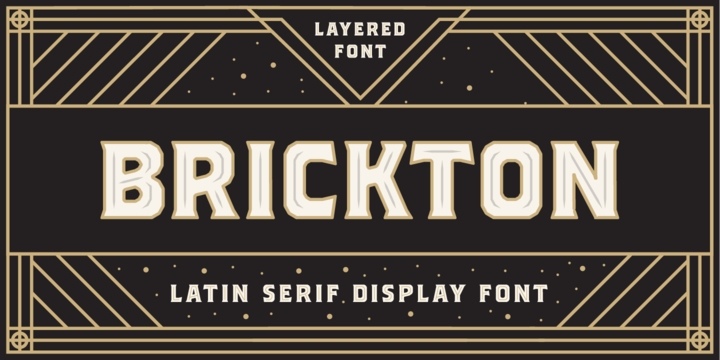
Brickton Font is perfect for construction company branding, masonry contractor logos, architectural firm presentations, building materials packaging, structural engineering documentation, construction equipment signage, contractor business materials, industrial supply company graphics, real estate development projects, and infrastructure company communications. This solid typeface excels in applications where structural integrity, building craftsmanship, and construction reliability are fundamental brand messaging elements.
What makes Brickton Font exciting is its robust embodiment of construction excellence through sturdy letterforms that capture the strength and precision of quality building craftsmanship and structural engineering. The font features brick-inspired character construction with solid proportions and reliable details that immediately convey durability, expertise, and the kind of structural integrity that defines superior construction work. Its dependable personality makes it perfect for companies that build lasting structures and maintain the highest standards of construction quality and professional excellence.
The Brickton Font family typically includes Regular and Bold weights, often accompanied by condensed variations that accommodate space-efficient construction documentation and building specification requirements. Many versions include alternate characters with enhanced structural styling, decorative elements inspired by architectural details and construction tools, and special symbols related to building trades and construction processes. Some collections include weathered variations and industrial effects that enhance the authentic construction site aesthetic for specialized applications.
Whether you're developing brand identities for construction companies, creating materials for building trade professionals, or designing content that celebrates construction craftsmanship and structural engineering excellence, Brickton Font Free Download provides the authentic construction character that resonates with builders, contractors, and clients who value quality workmanship and reliable construction services. Its solid presence makes it ideal for businesses that take pride in creating lasting structures that stand the test of time while maintaining the highest safety and quality standards. The font's ability to convey both technical competence and trustworthy reliability makes it particularly valuable for construction contractors, engineering firms, and building material suppliers seeking to attract clients who depend on proven expertise, quality materials, and the kind of construction excellence that creates structures built to last generations.